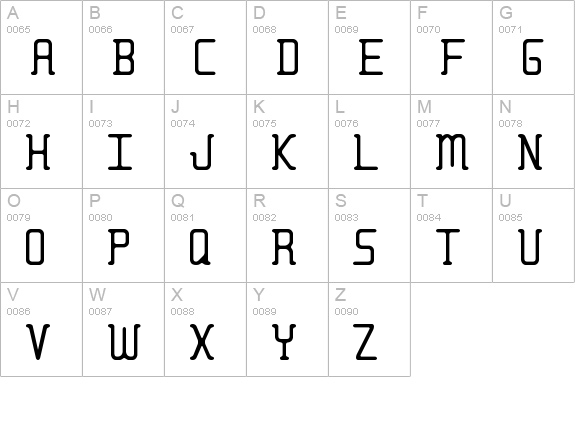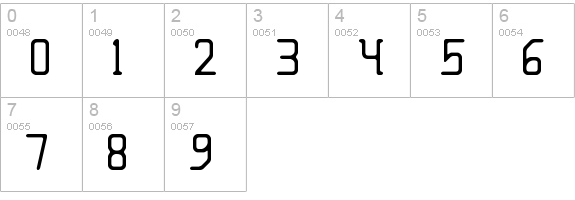
Moronic Misfire BRK Font Details
Moronic Misfire BRK font is a unique and quirky typeface that adds a touch of whimsy to any project. With its playful and irregular letterforms, this font is sure to make a statement and stand out from the crowd. Whether you're designing posters, logos, or social media graphics, Moronic Misfire BRK font will inject a sense of fun and creativity into your work. Best of all, Moronic Misfire BRK font is available for free download at FontsMarket.com. So go ahead and add this delightful font to your collection today and let your imagination run wild with its endless creative possibilities.